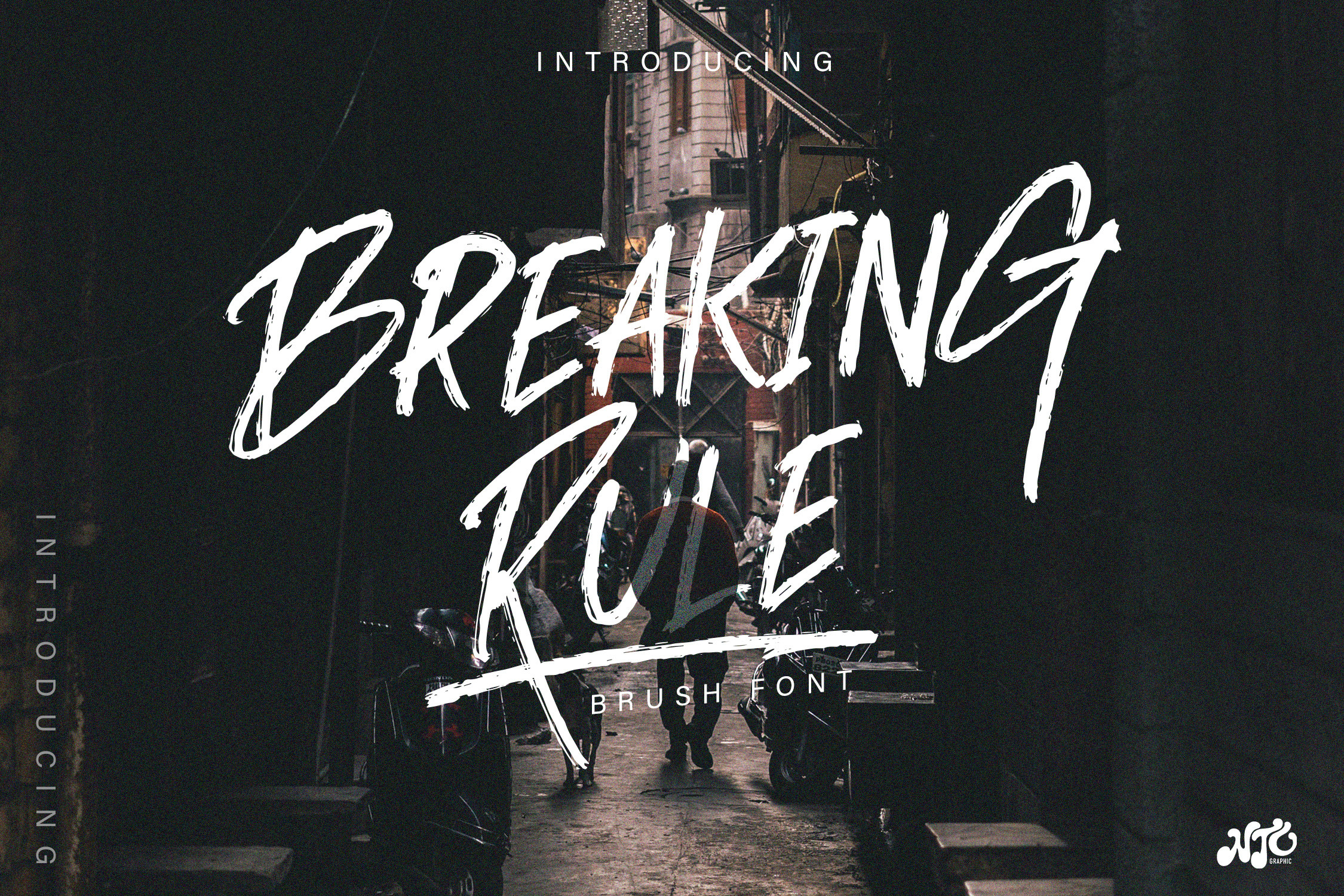
BREAKING RULE - Rough Brush Font
BREAKING RULE is a unique brush script font with rough and street style. BREAKING RULE is a font with an eye catching organic rough brush style. Can be applied to support the graphic appearance of the product to be more attractive and unique. This font is suitable for making previews and covers, street logo designs, street shirt designs and other graphic needs.
BREAKING RULE font with uppercase characters A-Z, lowercase characters a-z, punctuation, swashes, stylistic alternate and ligature characters that enhance this font shape.